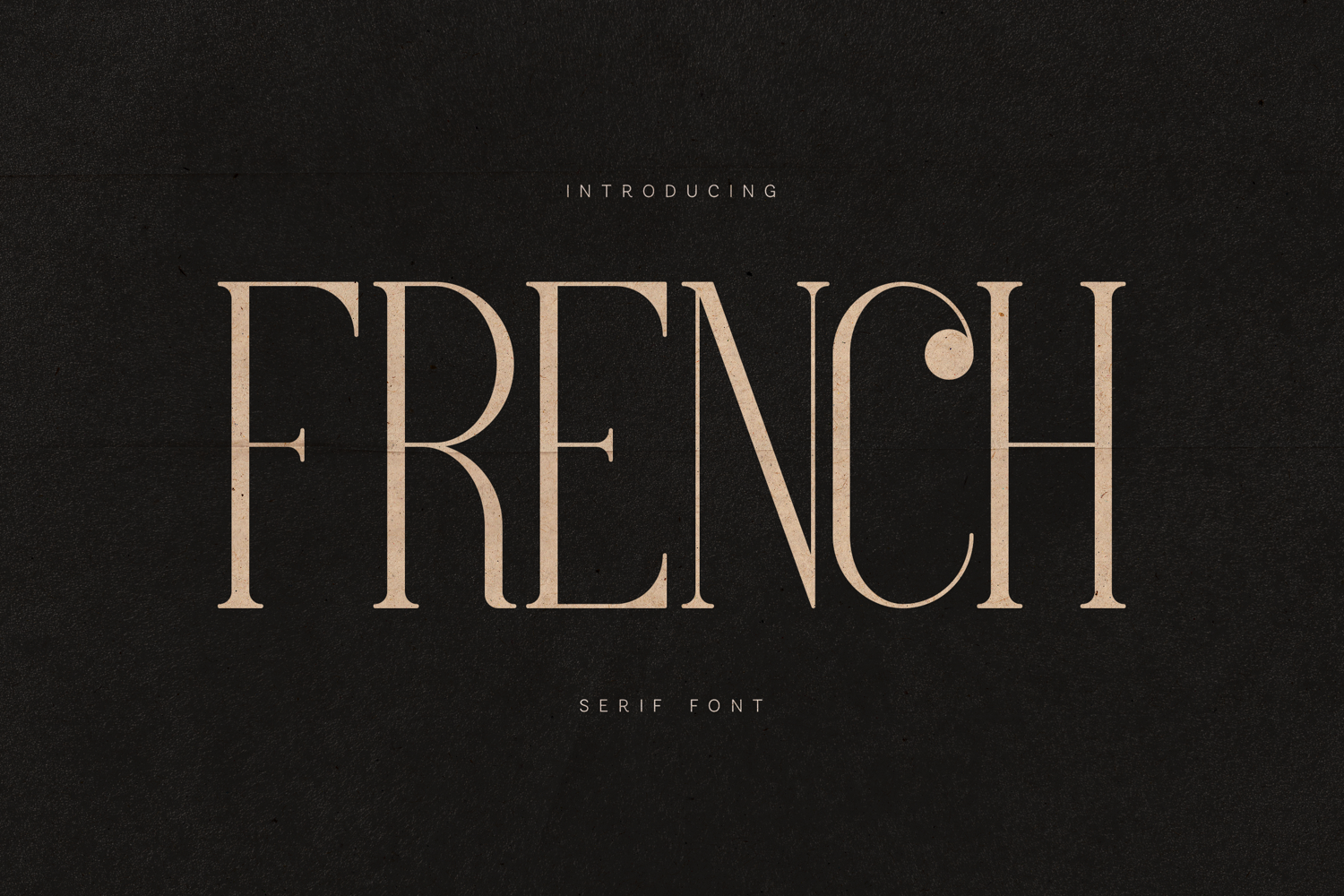
French Elegant Modern Serif Font
French is a refined modern serif typeface designed for elegant branding, editorial design, and sophisticated typography. Inspired by classic high-fashion typography and modern editorial layouts, the font combines delicate contrast with clean structural balance, creating a stylish and luxurious typographic voice.
Its tall proportions, smooth curves, and carefully crafted serif details give the typeface a distinctive and memorable personality. The design feels timeless while still maintaining a contemporary aesthetic, making it ideal for modern branding and premium design projects.
French works beautifully for luxury logos, magazine headlines, fashion branding, packaging, invitations, advertising campaigns, and stylish social media graphics. The elegant character shapes provide strong visual impact while remaining highly readable at both large display sizes and smaller editorial settings.
The font includes uppercase and lowercase characters, numbers, punctuation, and extended multilingual language support, making it suitable for international design projects.
Whether used for sophisticated branding or bold editorial statements, French adds a timeless elegance and refined aesthetic to any design.